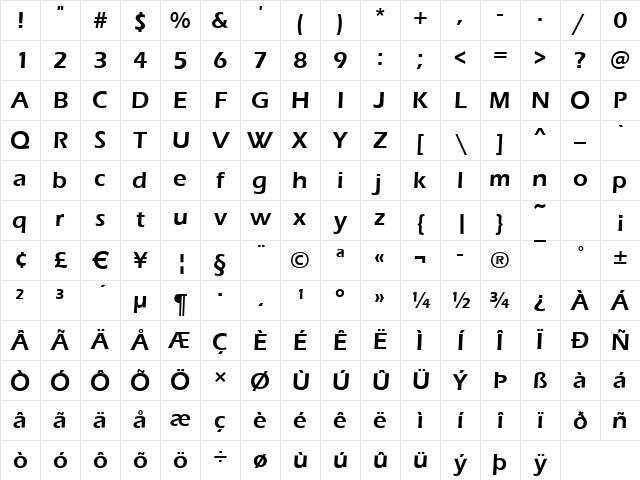
Ennis-Demi Regular Free Font
Ennis-Demi Regular
Complete Ennis-Demi Regular glyph index. Displaying only characters natively supported by Ennis-Demi Regular font.
Design Context for Ennis-Demi
Ennis-Demi is a composed and adaptable typeface that performs quietly and consistently across a wide range of design contexts.